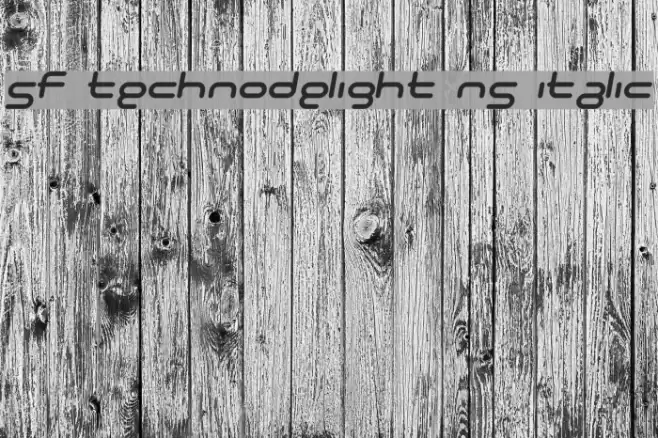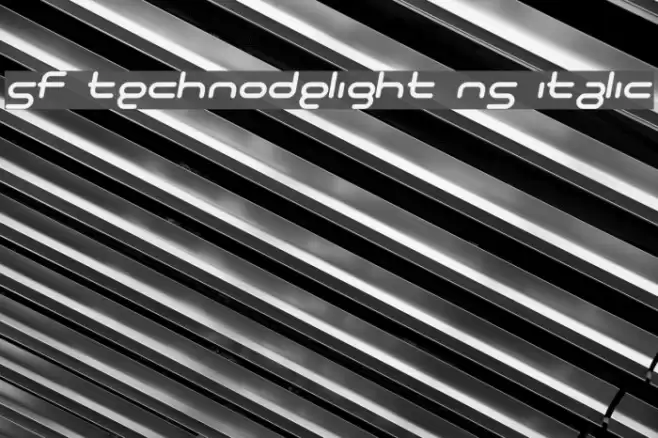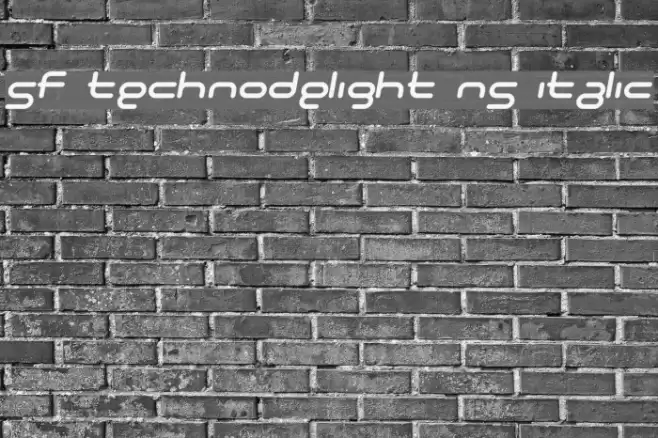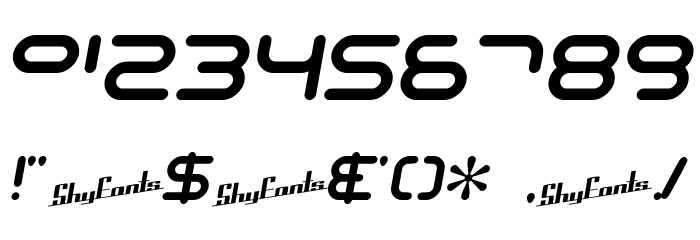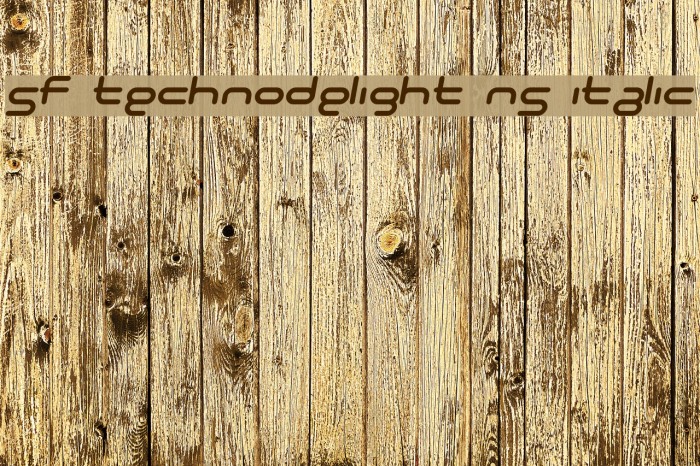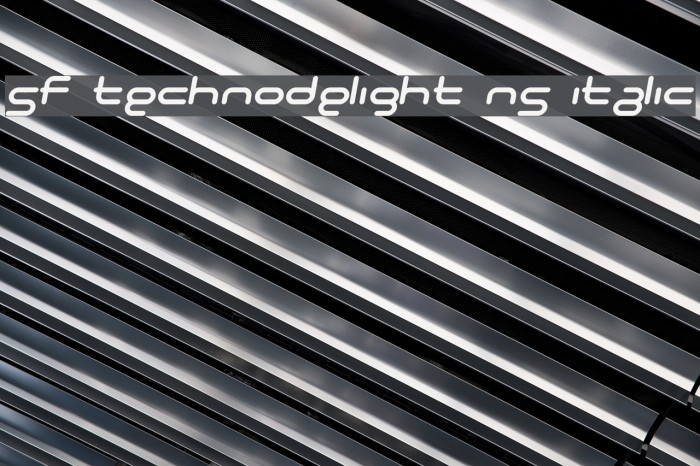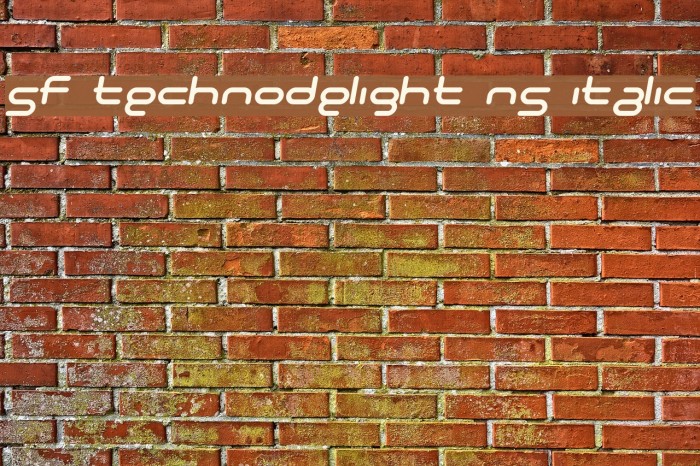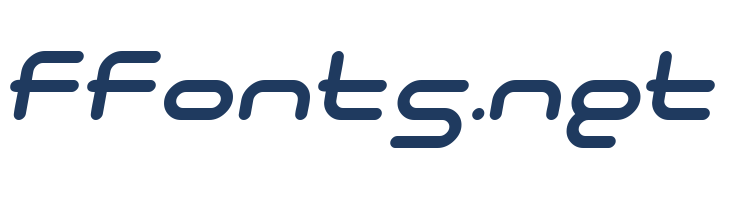
SF Technodelight NS Italic Font
SF Technodelight NS Italic Description
This font features a futuristic and sleek design with rounded edges and a consistent stroke width. The characters are slightly italicized, giving a dynamic and forward-moving appearance. The lowercase letters maintain a uniform height, while the uppercase letters are distinct yet harmonious with the overall style. The numerals are bold and clear, ensuring readability. Special characters are uniquely styled, maintaining the font's modern aesthetic. This font is ideal for projects that require a contemporary and technological feel.
A futuristic, italicized font with rounded edges and consistent stroke width from Futuristic fonts.
- Proposed Projects: Ideal for technology branding, sci-fi themed projects, modern web design, and innovative product packaging.
- Use Case: Logos, Headlines, Branding